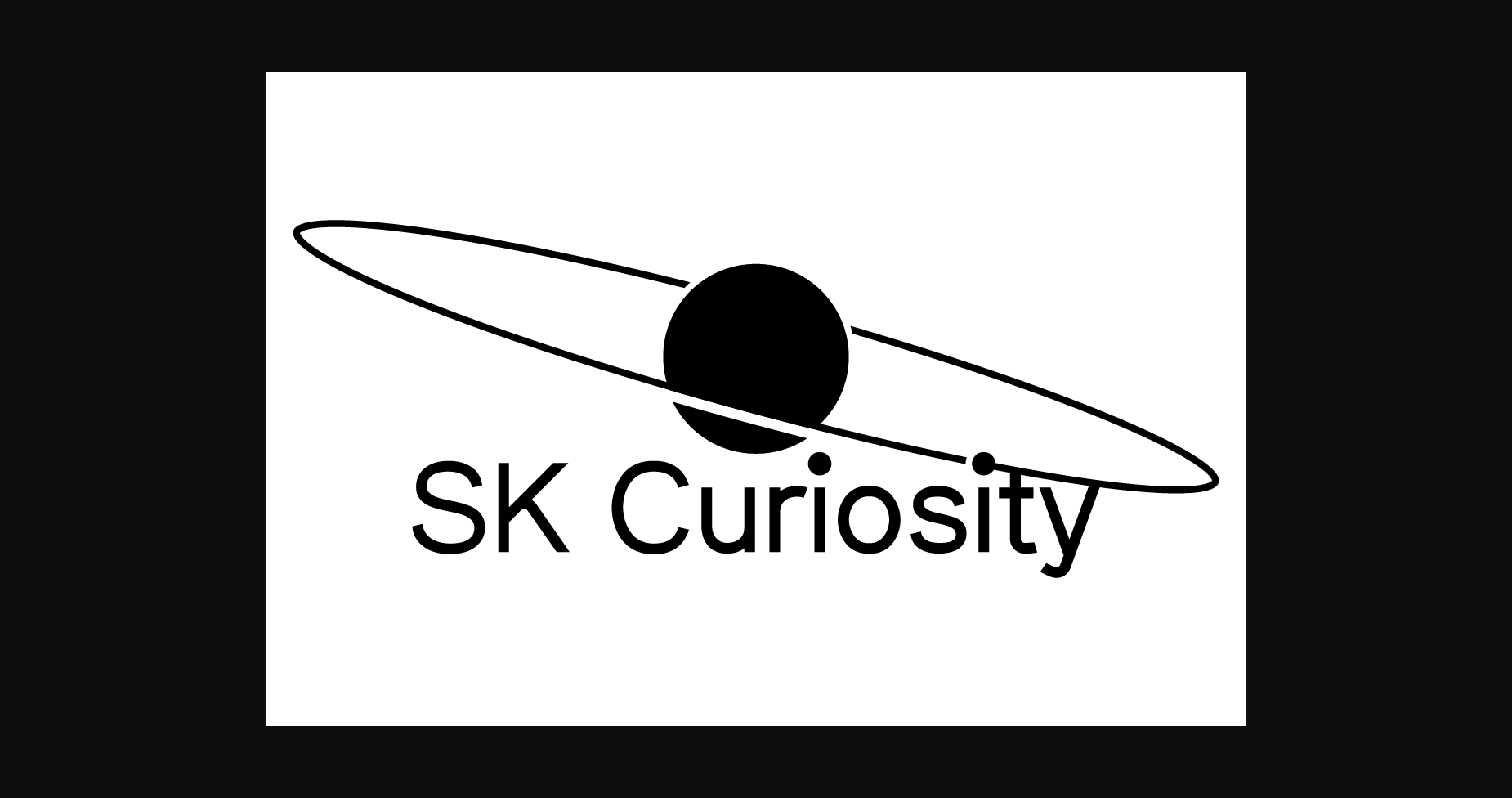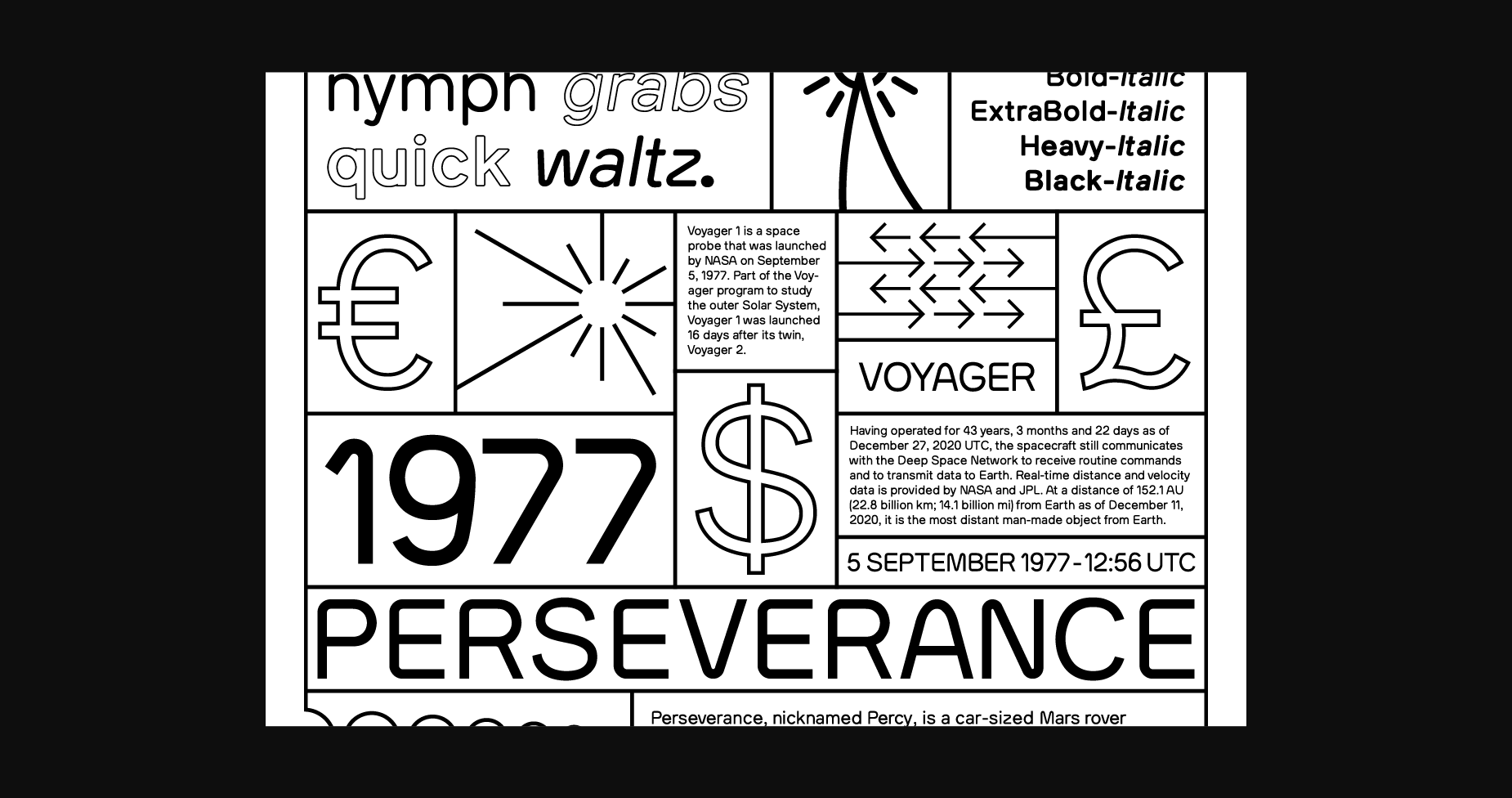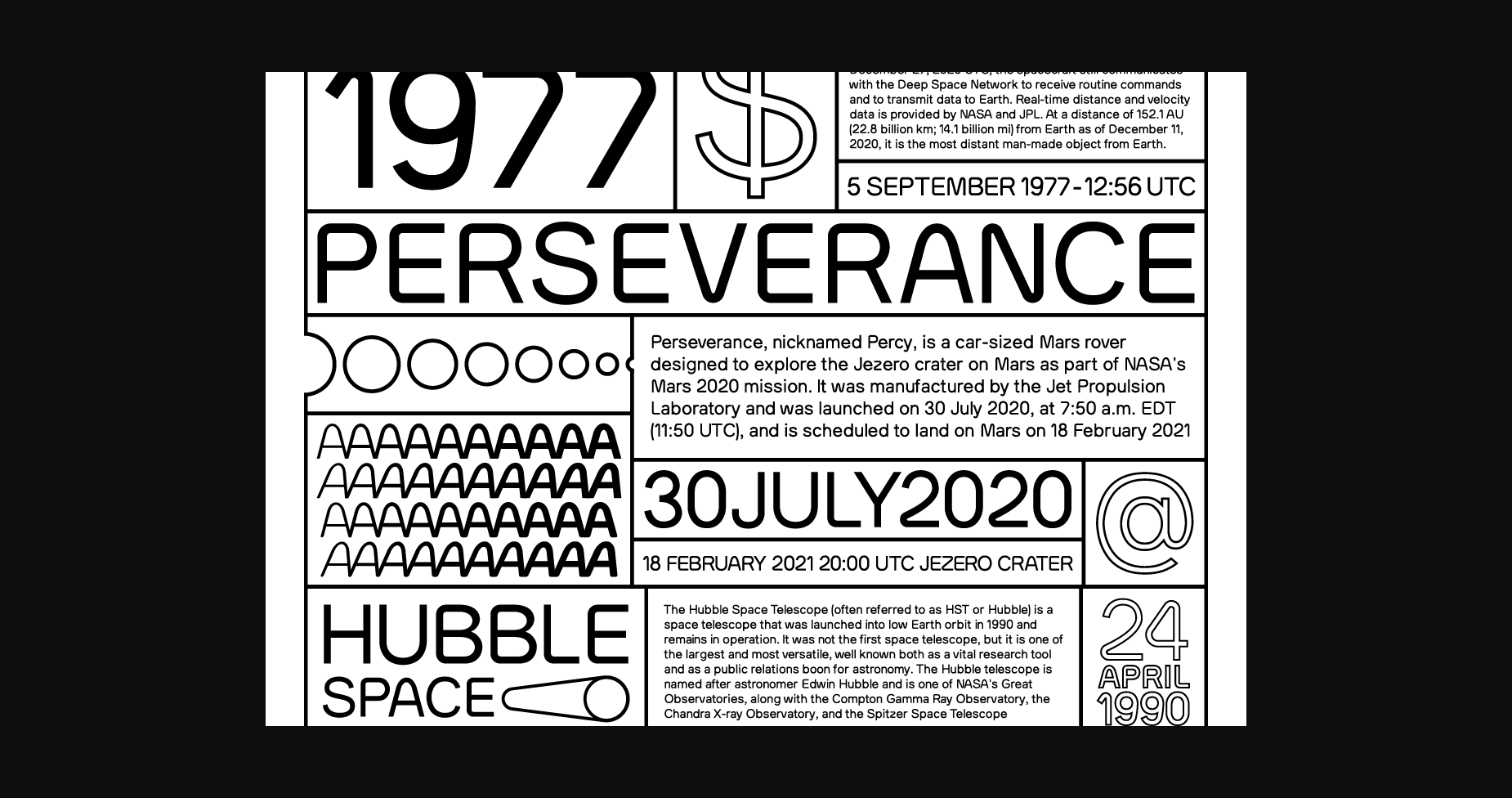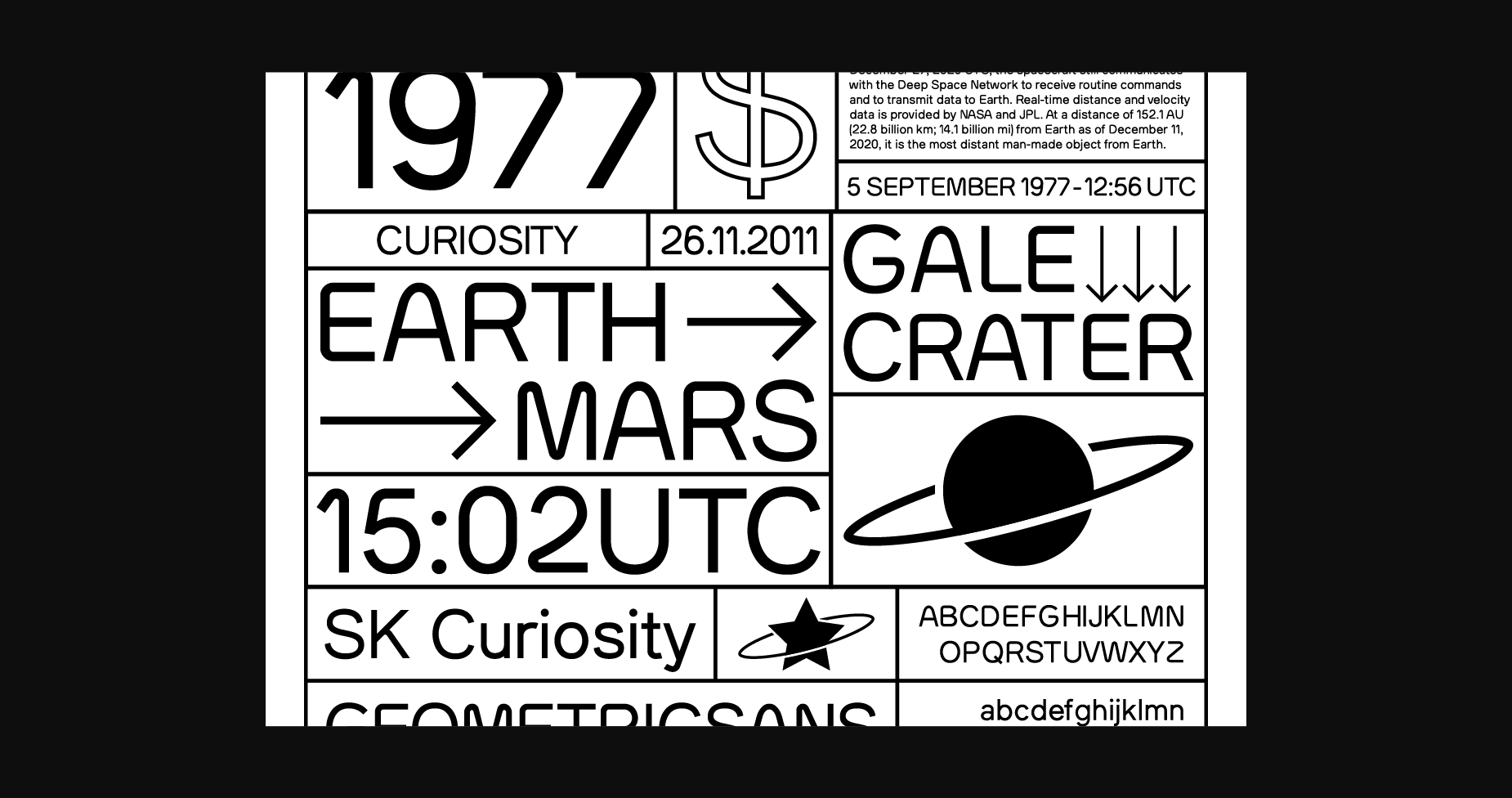
About SK Curiosity Font
SK Curiosity is a modern and clean sans serif font. It will elevate a wide range of crafting ideas, from cards, to branding, labels and much more.